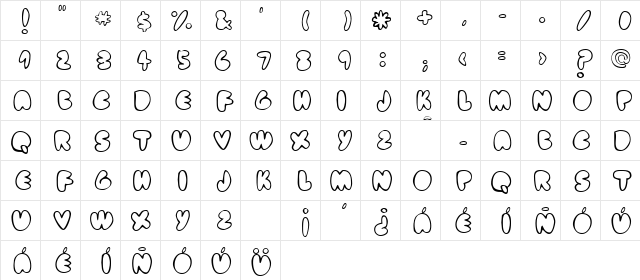
fat ass outline
| Style | outline |
Design Context for fat ass Typeface
fat ass is built around its visual character rather than neutral utility — its distinctive forms are designed to make an impression at display sizes.
Font Pairing: Pair with a clean neutral sans-serif for body copy to let fat ass's character lead without overwhelming the composition.
Pro Tip: Use fat ass exclusively at display sizes — it was designed to be seen, not read at length. Let a neutral companion handle body copy.